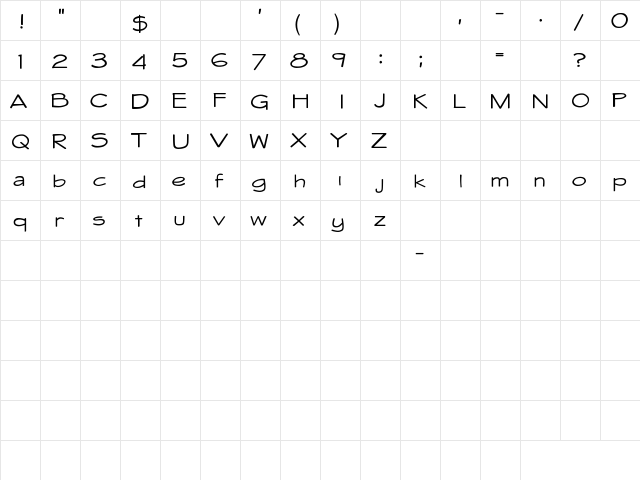
Whitehall 1212 Regular
Design Context for Whitehall 1212 Typeface
Whitehall 1212 is a composed and adaptable typeface that performs quietly and consistently across a wide range of design contexts.